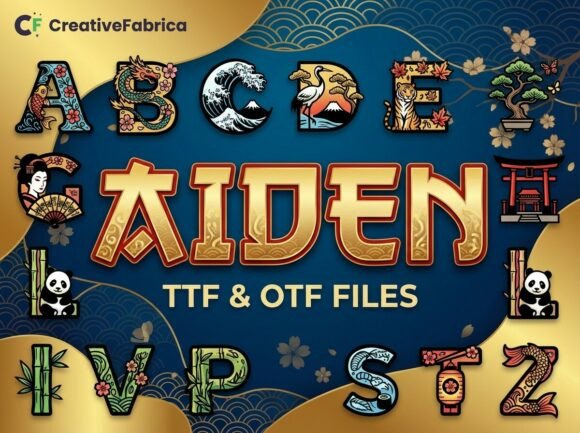
The Ultimate Guide to Aiden Font: Elevate Your Designs with a Stunning Display Font
What Makes Aiden Font Special?
Aiden Font is a stunning decorative display font designed to be the center of attention. Featuring unique artistic elements and a strong visual personality, this font is perfect for creators who want to break away from the ordinary. With its intricate details and creative letterforms, Aiden Font is ideal for high-impact designs where the typography needs to do the talking.
Here’s what I love about Aiden Font:
- ✨ Unique Artistic Elements: The font’s intricate details and creative letterforms make it truly stand out.
- ✅ Versatility: Perfect for bold headlines, artistic logos, and creative packaging, while maintaining a professional and polished finish.
- 💥 Instant “Wow” Factor: Adds a significant impact to any project, making it perfect for designs that need to grab attention.
And here are some small quirks or limitations:
- 🤔 Legibility at Small Sizes: Aiden Font can be a bit tricky to read at smaller sizes, so it’s best used for headlines or larger text.
- ⚠️ Overuse: Because it’s so attention-grabbing, be careful not to overuse it in a single design, as it can become overwhelming.
The Designer Inspiration Behind Aiden Font
Aiden Font was inspired by a combination of modern art movements and traditional typography. The designer aimed to create a font that not only stands out but also tells a story through its intricate details. The result is a font that’s both visually striking and full of character.
Q: Is Aiden Font suitable for body text?
A: No, Aiden Font is best used for headlines and large text due to its intricate details and decorative nature. For body text, a simpler, more legible font is recommended.
Q: Does Aiden Font support OpenType features?
A: Yes, Aiden Font supports various OpenType features, including stylistic alternates and glyphs, allowing for a high degree of customization.
Q: Is Aiden Font available in different weights or styles?
A: Aiden Font comes in a single style, but its versatility and range of OpenType features make it suitable for a wide range of design applications.